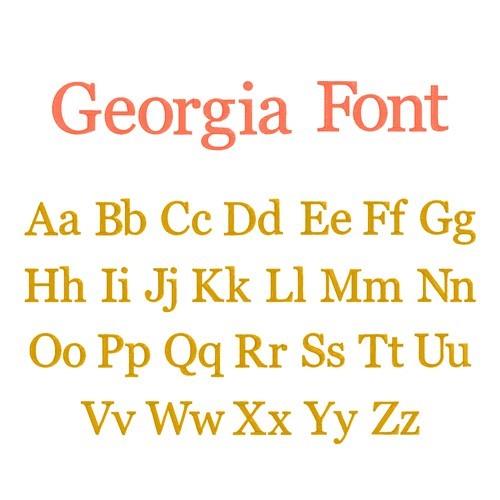
Maya Kreations is happy to present Georgia Font machine embroidery font which has Classic block machine embroidery font suitable for projects on jackets and totes. This style emphasizes clear lettering in alternating colors, ideal for showcasing names. Available in PES, DST & 6 additional formats. included. If you would like to view more embroidery fonts and alphabets please search our embroidery fonts page.